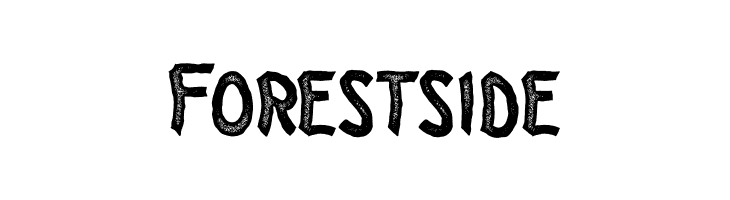
A bold, shadowed font with a playful, three-dimensional look.
A bold, jagged font with a horror-inspired, hand-cut appearance.
A bold, angular font with a dynamic slant, perfect for impactful designs.
Bold, condensed, and italic with sharp angles and dynamic style.
A bold, jagged font with a horror-inspired, hand-drawn style.
A bold, staggered, italicized font with an edgy, modern style.
A bold, three-dimensional font with a playful, edgy style and thick black outlines.
A bold, angular font with a geometric and edgy style.
A bold, dripping font perfect for horror themes.
A bold, distressed font with sharp, jagged edges and a grunge-like appearance.
A bold, rounded font with a playful and modern aesthetic.
A bold, decorative font with irregular, textured edges, perfect for dramatic headlines.
A bold, textured font with a playful and distressed appearance.
A bold, textured font with a playful and dynamic style.